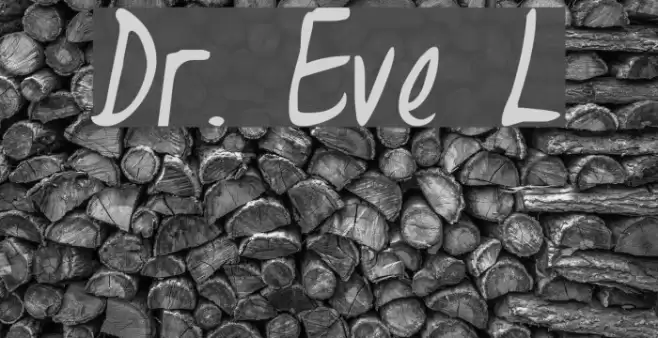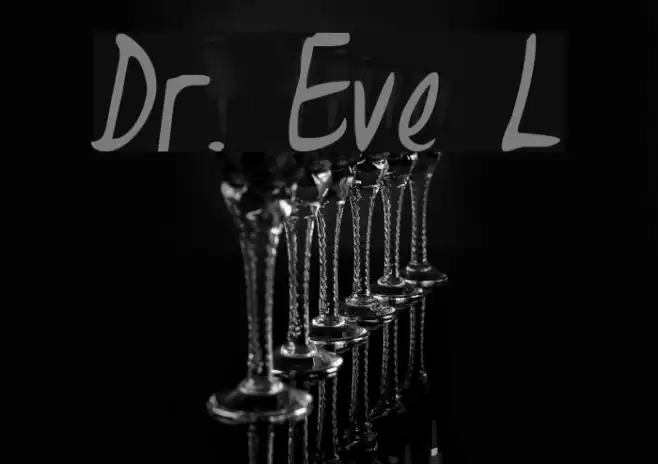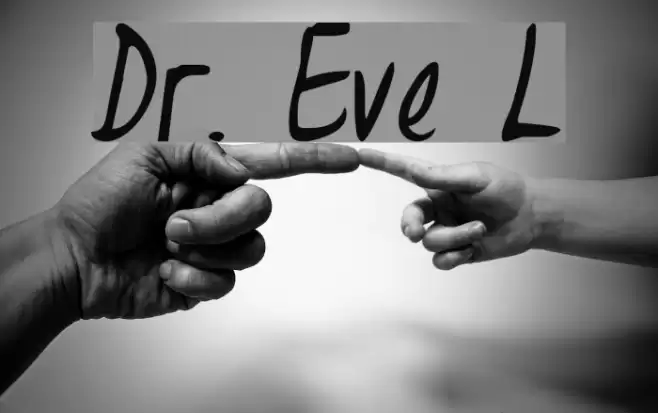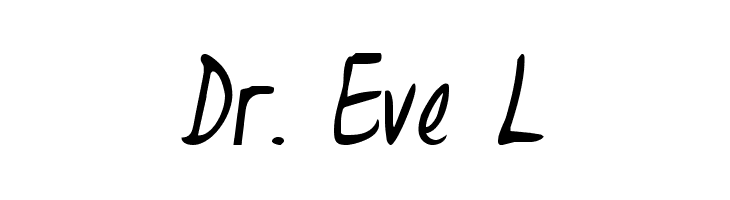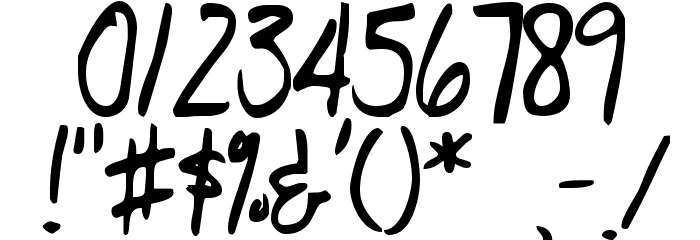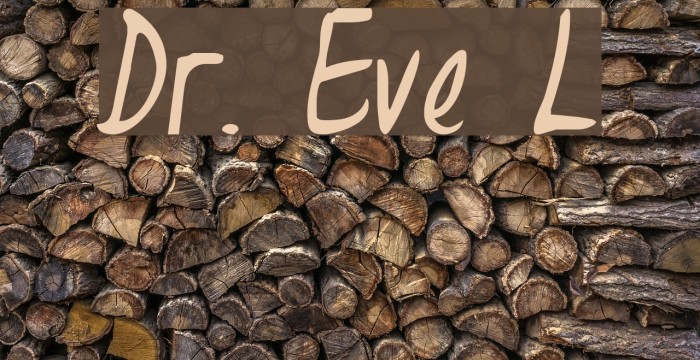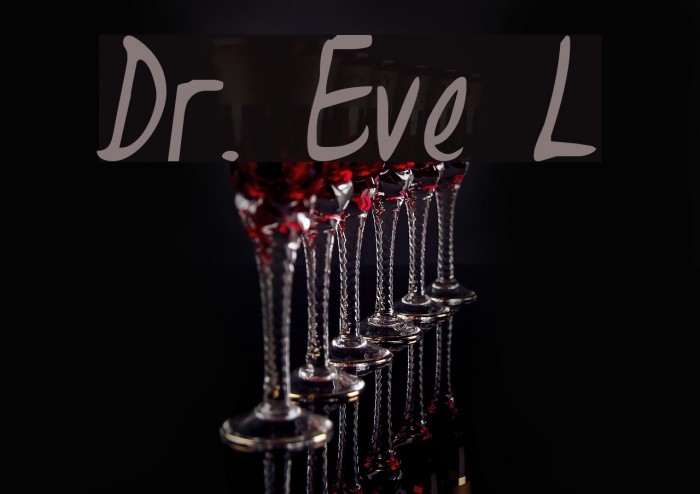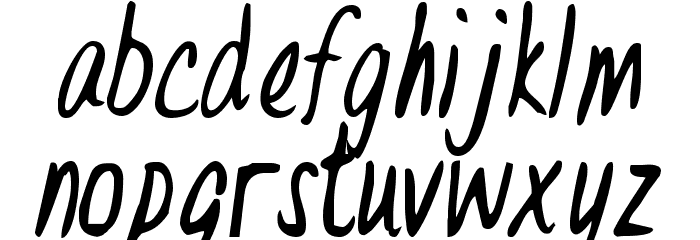
Dr. Eve L Font
Dr. Eve L Description
This font exhibits a playful and energetic handwritten style, characterized by its dynamic and irregular strokes. The letters are slightly slanted, giving a sense of motion and informality. The uppercase and lowercase letters are well-balanced, maintaining a consistent flow throughout the alphabet. Numbers and special characters follow the same lively style, ensuring a cohesive look. This font's unique personality makes it stand out, perfect for projects that require a personal touch or a casual, friendly vibe.
A playful, handwritten font with dynamic, irregular strokes from Handwritten fonts.
- Proposed Projects: Ideal for greeting cards, personal branding, casual invitations, and creative social media graphics.
- Overall Style: Casual, Playful
- Use Case: Logos, Headlines, Informal Text